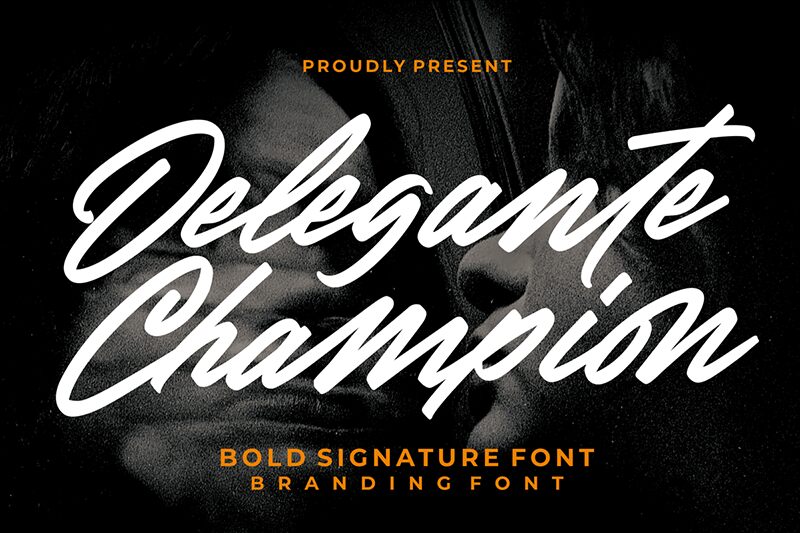
Delegante Champion
Delegante Champion font by Typeline Studio is a free handwritten font with a condensed structure and script style. The elegant and flowing appearance is ideal for branding and logo designs. The letters are expressive, yet not extravagant – making them perfect under different contemporary applications.